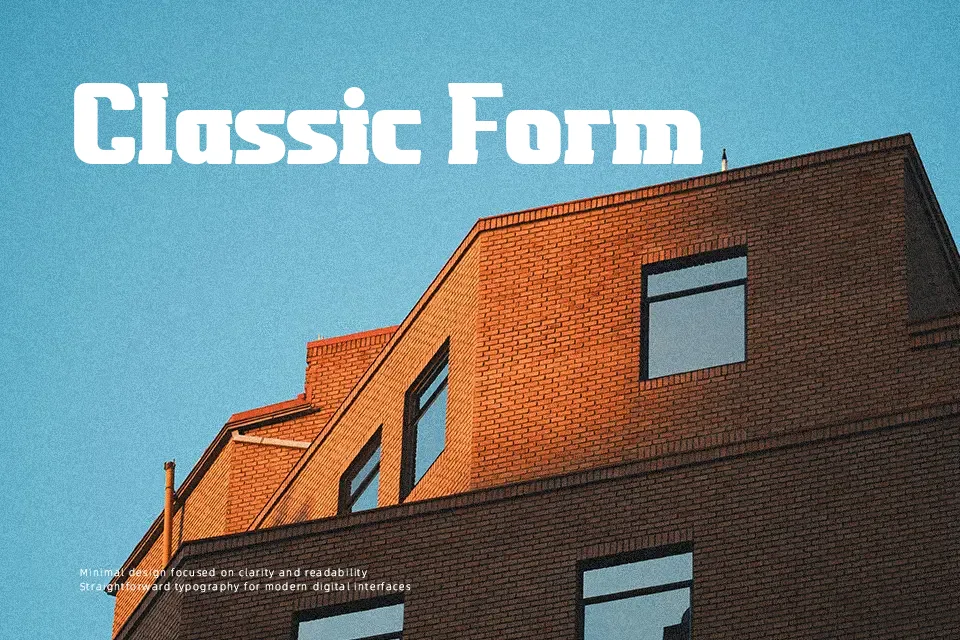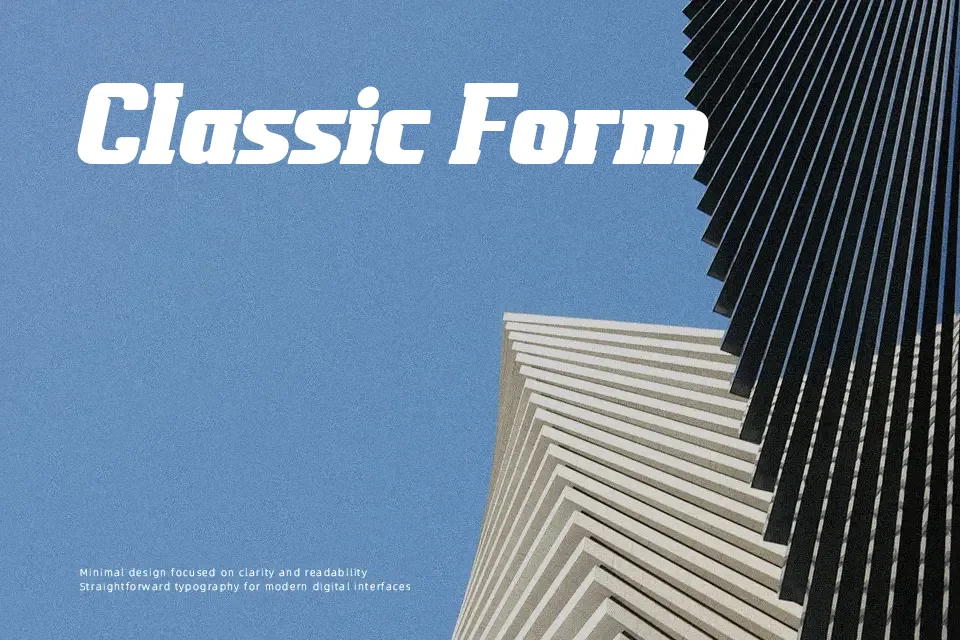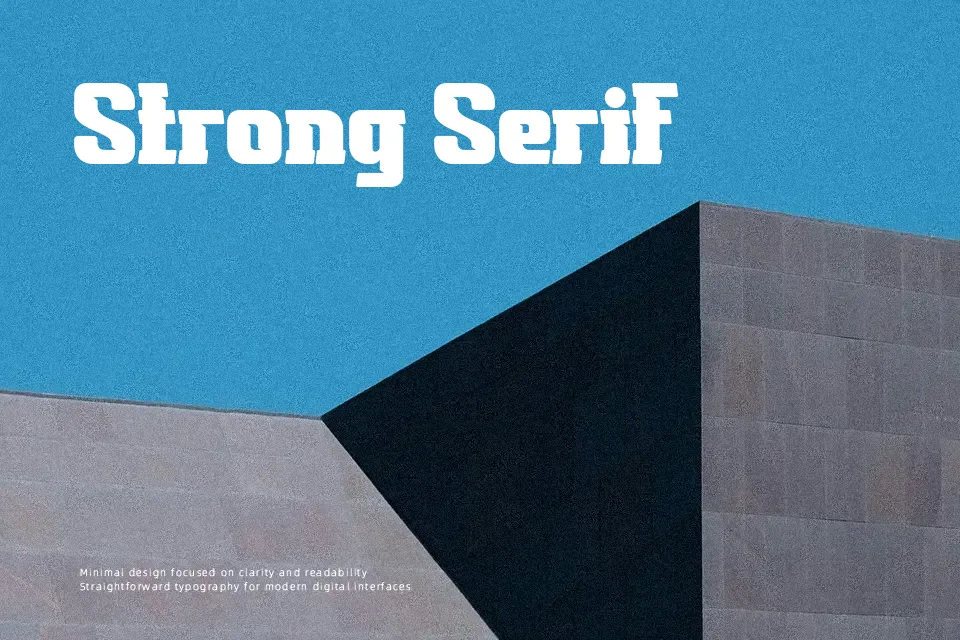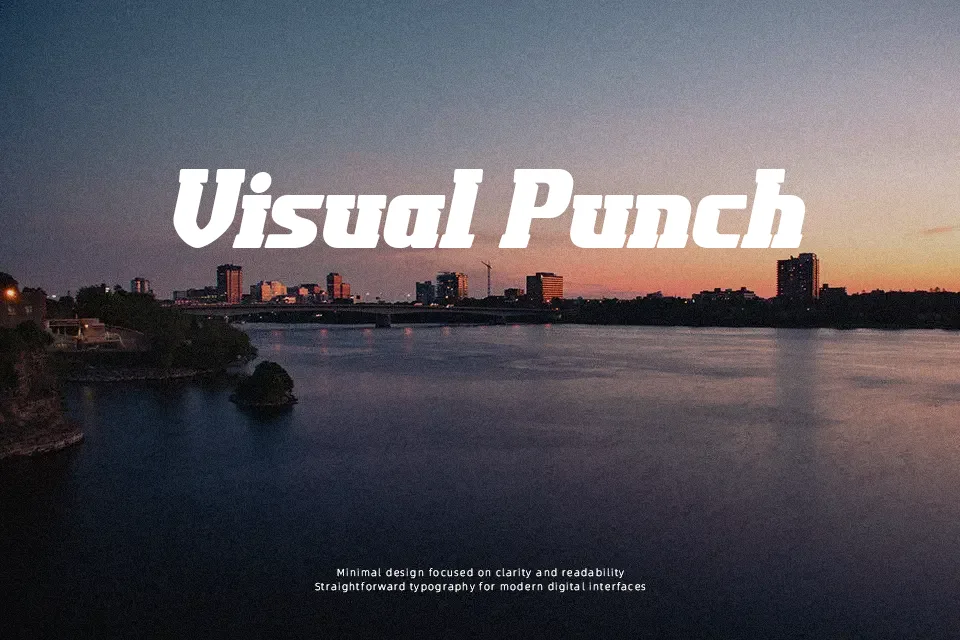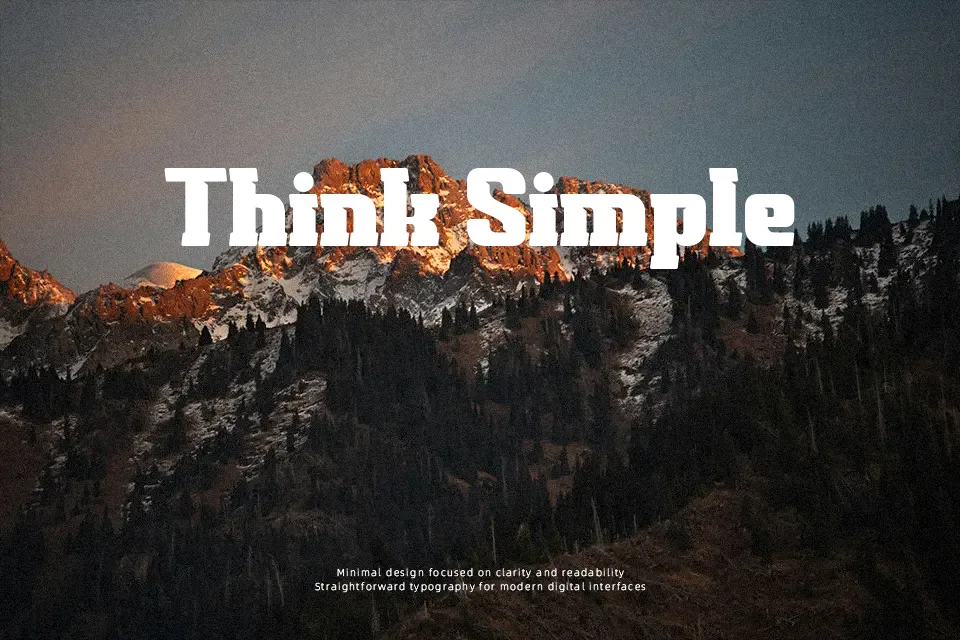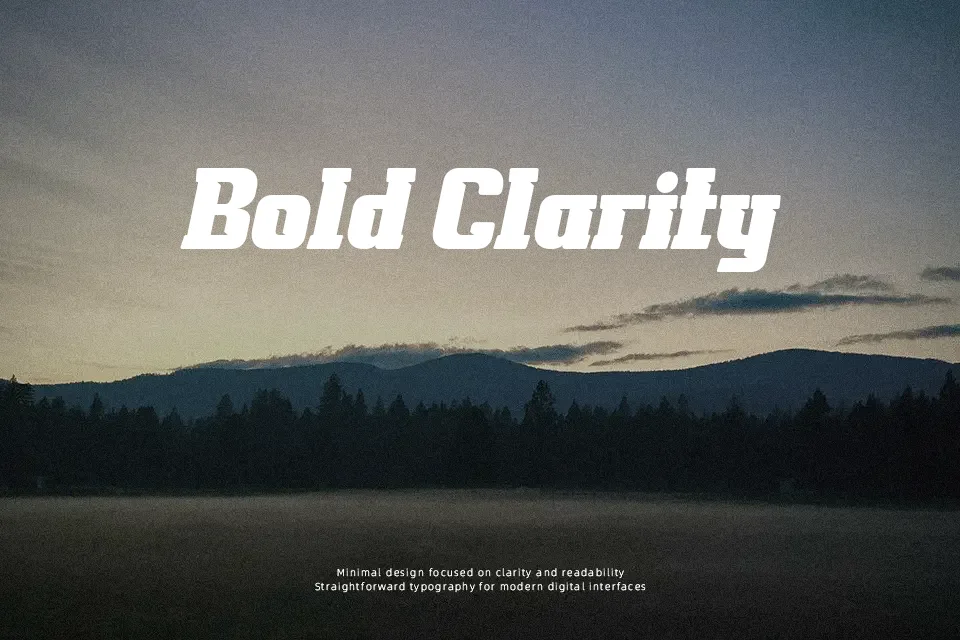
Kunex Font
Designed by twinletter
Kunex Font leans into a strong, angular build with thick strokes and compact spacing that pushes letters close together. The structure feels assertive and slightly aggressive, giving it a display-driven personality rather than a readable text style. It works best in scenarios like esports banners, bold social media graphics, or striking logo concepts where attention is the goal. However, the tight letter spacing and heavy forms can quickly reduce clarity in longer text or smaller sizes. It performs well when used sparingly, but becomes visually tiring if overused in dense layouts.
– gaming or esports titles
– poster headlines with strong impact
– bold logo experiments
– long paragraph text
– small UI elements
– formal corporate documents
Perfect for gaming, headline, and logo, with a bold and decorative style.